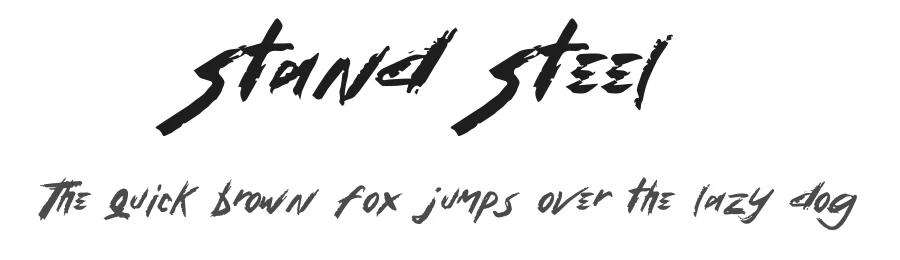
About Deathblood Font
Deathblood Font is a script font that shines as a display or heading face. Pair it with a clean sans-serif or serif font for body text β the contrast creates a clear hierarchy while the two styles stay balanced and easy to read.